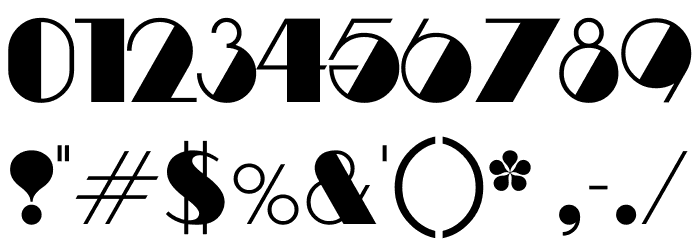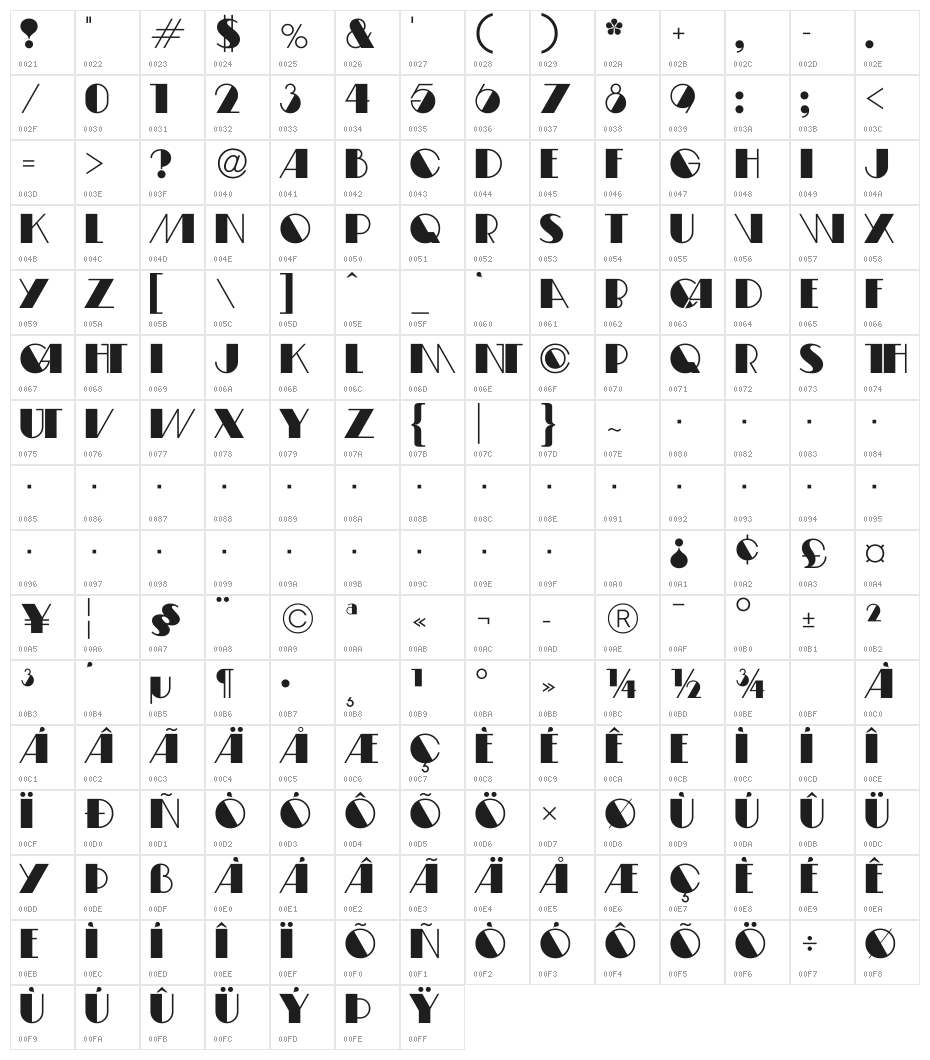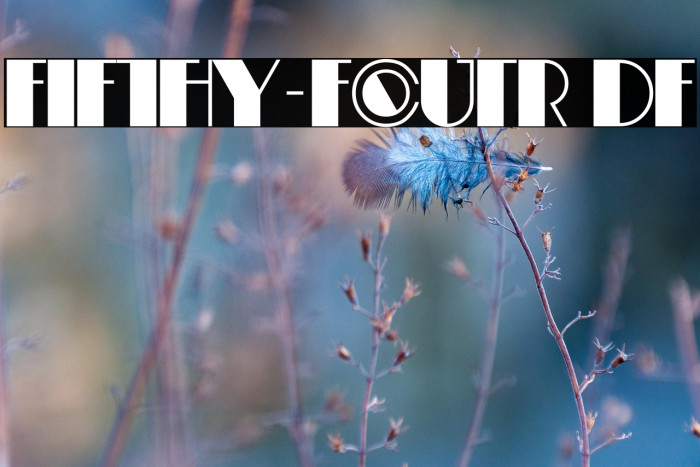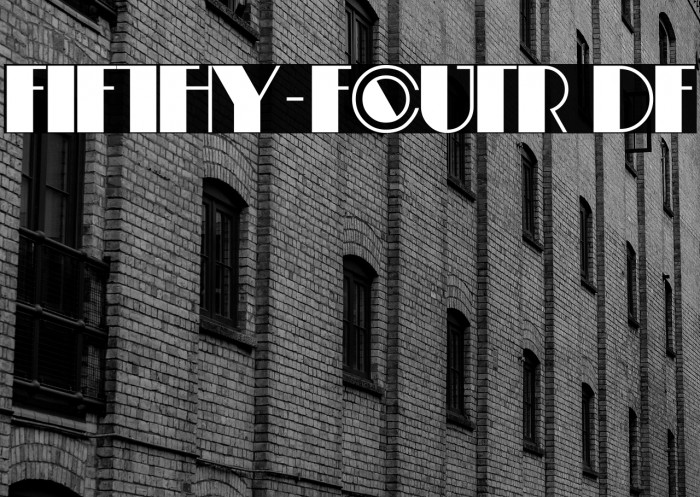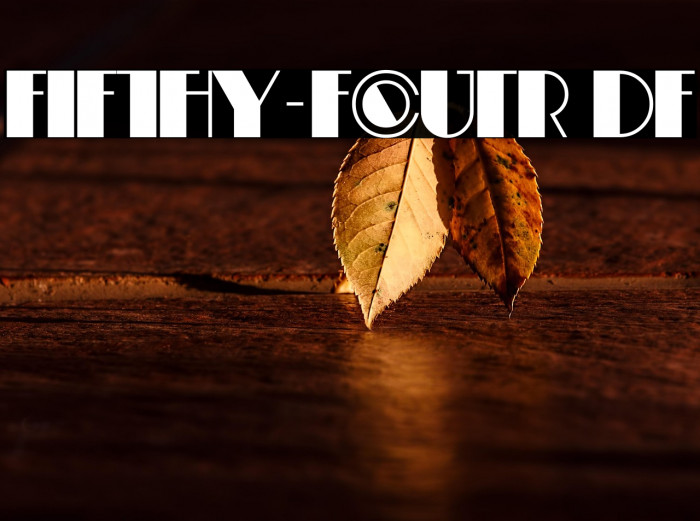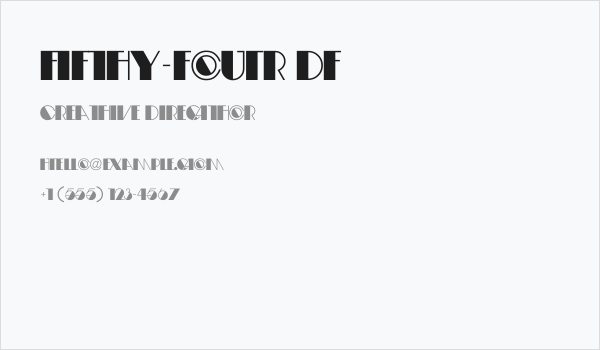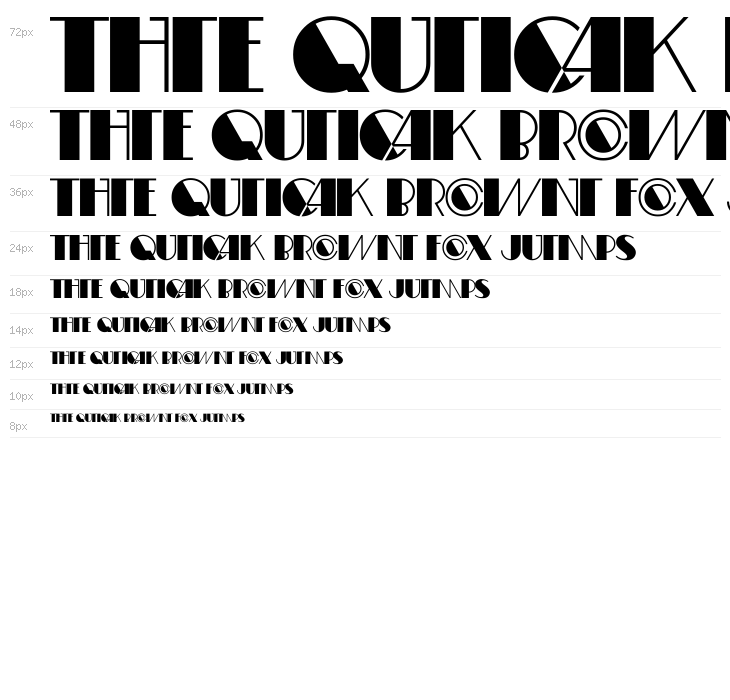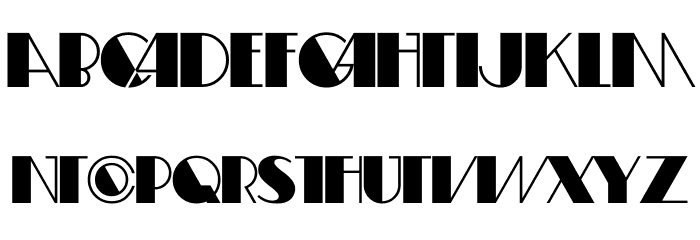
Fifty-Four DF Font
Fifty-Four DF Description
This font features a bold and geometric design with a modern and artistic flair. The characters are constructed with a mix of sharp angles and smooth curves, creating a dynamic and eye-catching appearance. The uppercase letters are particularly striking, with unique shapes that stand out. The numbers and special characters maintain the same bold and geometric style, ensuring consistency across the font. This font is perfect for projects that require a strong visual impact and a contemporary aesthetic.
| Proposed Projects | Ideal for branding, posters, headlines, and any design project that requires a bold and modern look. |